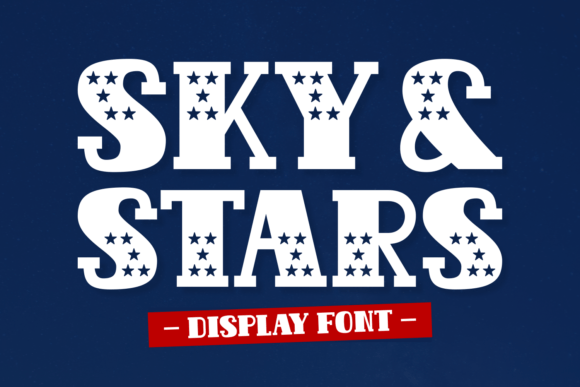
Embark on a celestial journey with Sky and Stars Font, the decorative font that will ignite your creativity and capture hearts. Inspired by the enchanting beauty of the night sky, this font weaves its magic, transforming your designs into starry wonders.
Imagine your logo, branding, and T-shirt designs adorned with Sky and Stars Font. Each letter becomes a sparkling gem, twinkling with celestial charm. Your book and movie titles will dazzle readers and audiences alike, as the font's intricate details draw them into your stories.
Sky and Stars Font is not just any font; it's a gateway to a world of imagination and wonder. Unleash your creativity and let the font's enchanting beauty lead you to new heights of design.
With Sky and Stars Font, you'll:
- Ignite your creativity with a font inspired by the celestial wonders of the night sky.
- Capture attention and create lasting impressions with designs that shine like stars.
- Transform your branding, logos, T-shirts, book and movie titles, posters, and prints into celestial works of art.
- Elevate your designs to new heights with a font that's as enchanting as the night sky.